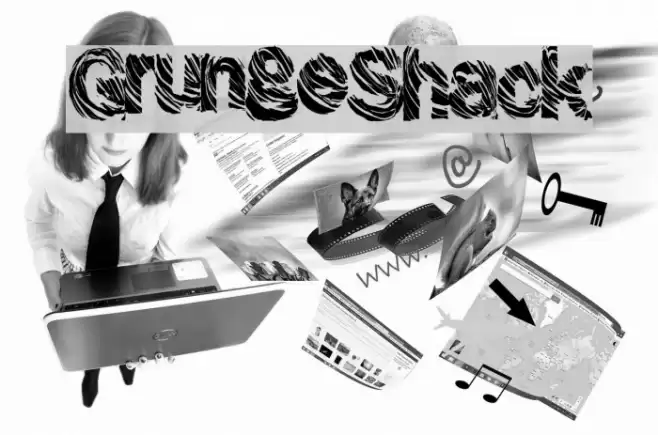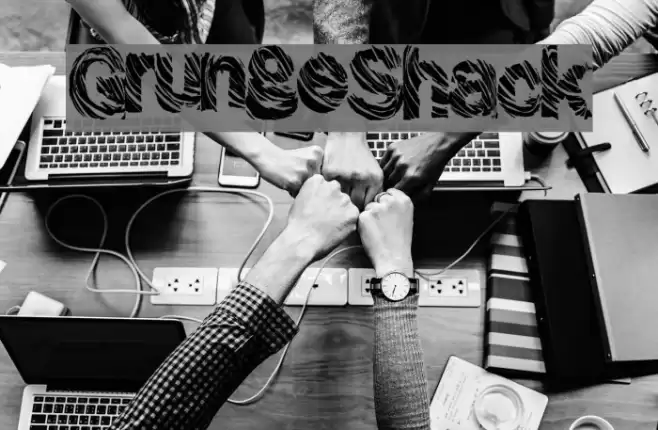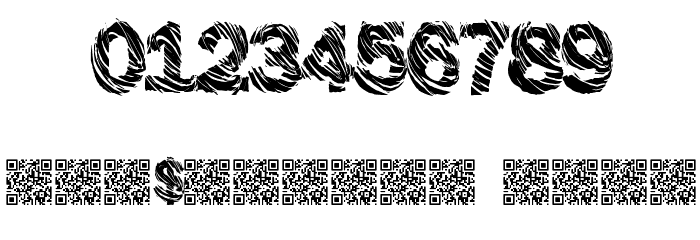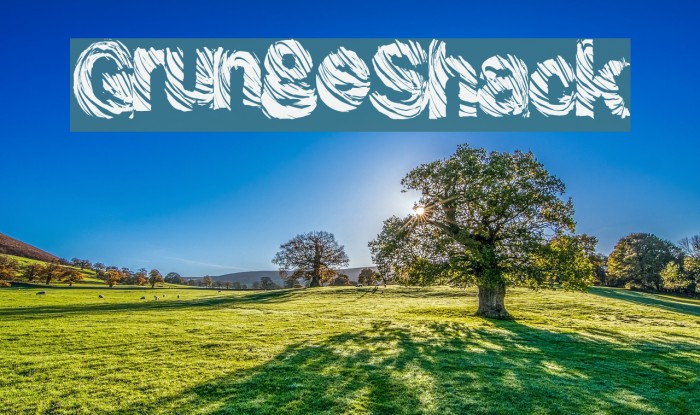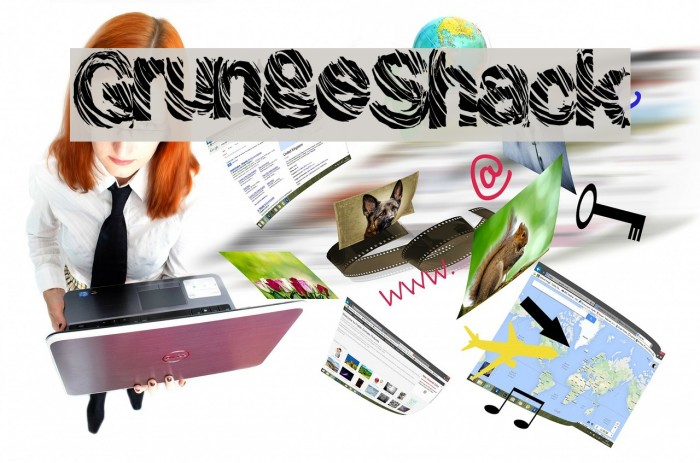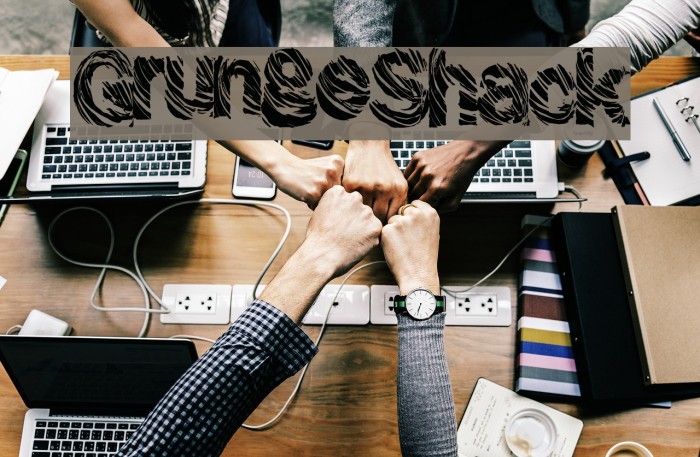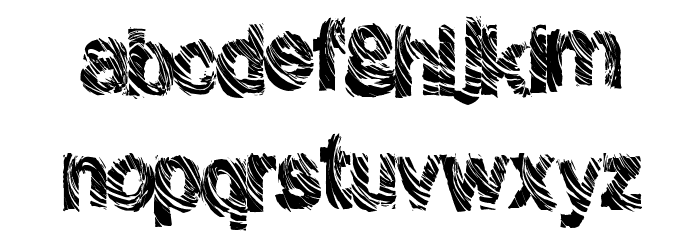
GrungeShack Font
GrungeShack Description
This font features a bold, distressed style with a grunge aesthetic. The letters are heavily textured, giving them a rough, edgy appearance that mimics the look of worn or scratched surfaces. Each character is unique, with irregular edges and a hand-drawn feel. The uppercase and lowercase letters maintain a consistent style, while the numbers and special characters follow the same rugged design. This font is ideal for projects that require a raw, urban look, such as music album covers, posters, or branding for alternative or streetwear brands.
A bold, distressed font with a grunge aesthetic and textured, irregular edges from Decorative fonts.
- Proposed Projects: Ideal for music album covers, posters, alternative branding, and streetwear designs.
- Overall Style: Grunge, Urban, Edgy